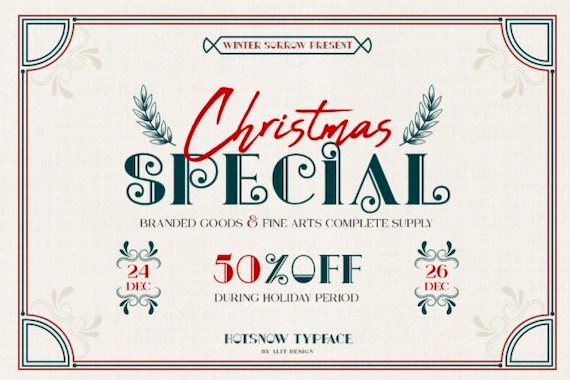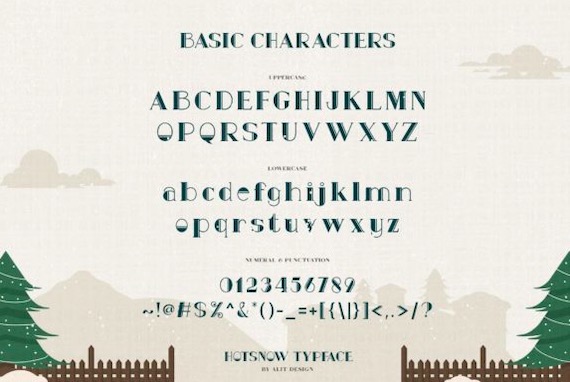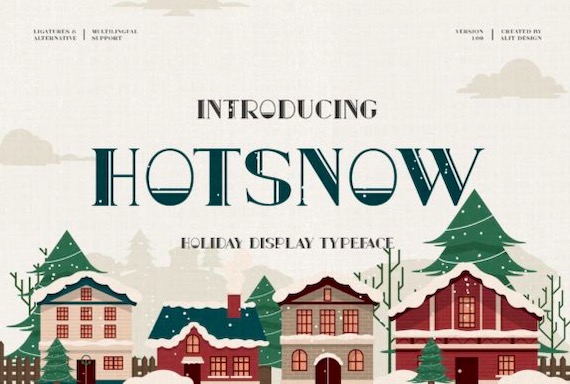
Hot Snow Font was created and shared by Alit Design. It seems like a great concept font and can be used for many big & powerful designs.
Hot Snow Display Font